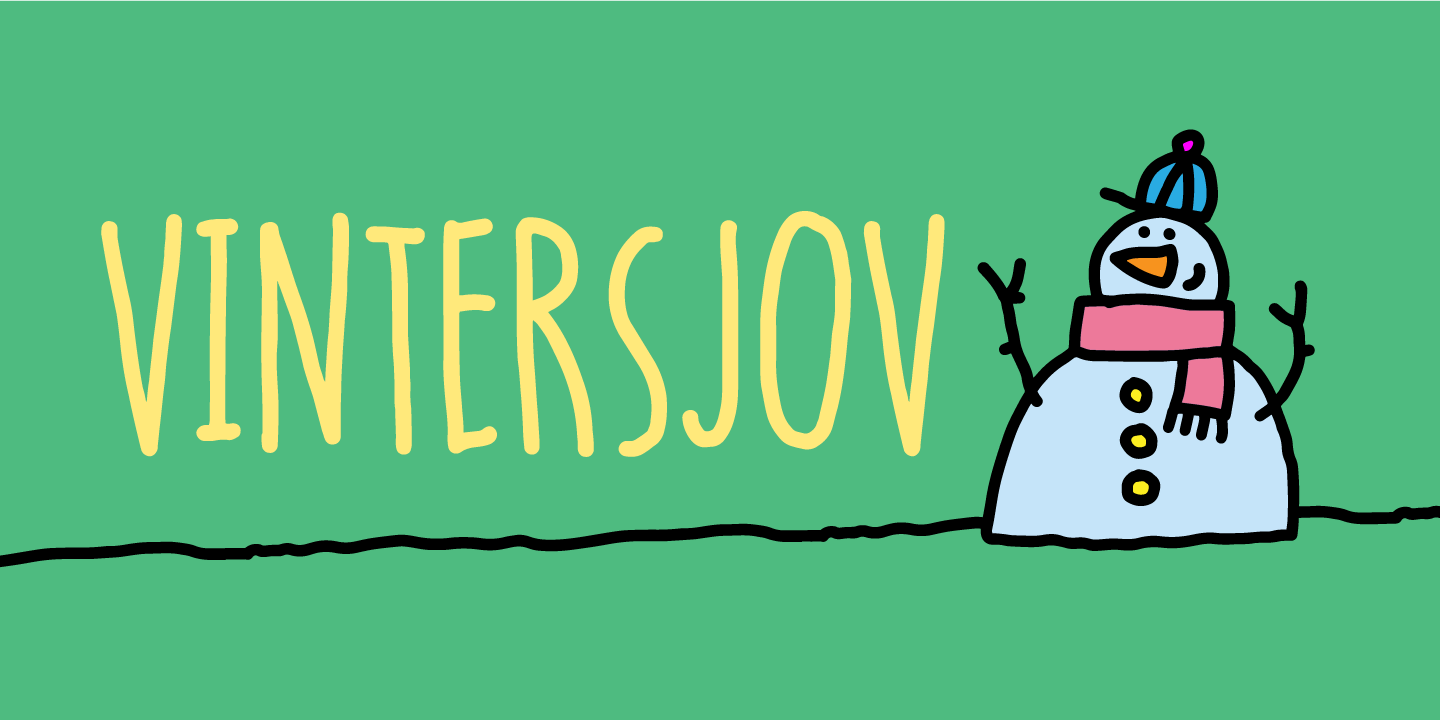
Vintersjov Font is perfect for Scandinavian brand identities, winter holiday campaigns, Nordic lifestyle brands, hygge-inspired communications, cozy café signage, winter sports promotions, Nordic design materials, festive seasonal graphics, Scandinavian cultural events, and warm winter celebration applications. This charming Nordic typeface brings Scandinavian coziness and winter joy to heartwarming seasonal design applications.
What makes Vintersjov Font so exciting is its remarkable ability to capture the essence of Nordic winter joy and the beloved Scandinavian concept of hygge through letterforms that radiate warmth, comfort, and the magical coziness of snowy winter evenings by the fireplace. The font features charmingly crafted characters with gentle curves and inviting proportions that embody the warm hospitality and joyful spirit that define Scandinavian winter traditions and cultural celebrations. Its distinctive characteristics include cozy stroke variations, friendly baseline shifts, and harmonious spacing that mirror the peaceful contentment and joyful togetherness that characterize Nordic winter culture and seasonal festivities. The font's authentic connection to Scandinavian heritage and proven appeal among audiences seeking comfort and authenticity make Vintersjov Font perfect for brands seeking to communicate warmth, tradition, and the simple pleasures that make winter seasons truly magical.
The Vintersjov Font family includes multiple cozy variations: Light, Regular, Medium, and Bold versions with Nordic character sets. The comprehensive character collection encompasses complete Latin alphabet support with Scandinavian-inspired alternates, festive numerals, cozy punctuation marks, winter symbols, and hygge-themed decorative elements that enhance seasonal messaging. Professional features include contextual alternates that maintain Nordic authenticity, warm spacing that creates cozy rhythm, friendly character construction that ensures maximum comfort, and winter details that add authentic Scandinavian atmosphere without compromising readability across different seasonal applications and cultural communications.
Whether you're creating winter campaigns, Nordic brand materials, or seasonal communications that celebrate the warmth and joy of Scandinavian winter traditions, Vintersjov Font Free Download provides the authentically cozy typography that connects with audiences seeking comfort, tradition, and the heartwarming experiences that define true Nordic hospitality. Its exceptional warmth makes it perfect for lifestyle brands, seasonal businesses, and Nordic-inspired organizations where creating feelings of comfort and belonging are essential for authentic cultural connection and customer engagement, while its cheerful construction ensures professional presentation that maintains reliability alongside maximum seasonal charm. The font's combination of Scandinavian authenticity and contemporary functionality makes it invaluable for designers working with Nordic brands, winter celebrations, and any project seeking to communicate the cozy warmth, joyful tradition, and heartfelt hospitality that defines Scandinavian winter culture and the beloved concept of hygge in today's comfort-seeking marketplace.